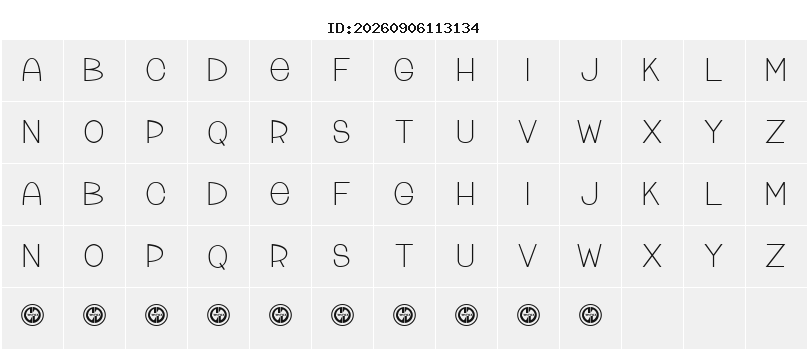
• Font Name: Tattle & Tales
• Full Font Name: Tattle & Tales
• Version: Version 1.00 May 17, 2016, initial release
• Designer: Chris Vile
• Manufacturer: Font Monger
• Description: Tattle and Tales Regular is a font by Font Monger, designed by Chris Vile in 2016.
Tattle & Tales.ttf is a modern, elegant sans-serif font designed for ultimate readability and visual harmony. Perfect for branding, headlines, web design, and print materials.